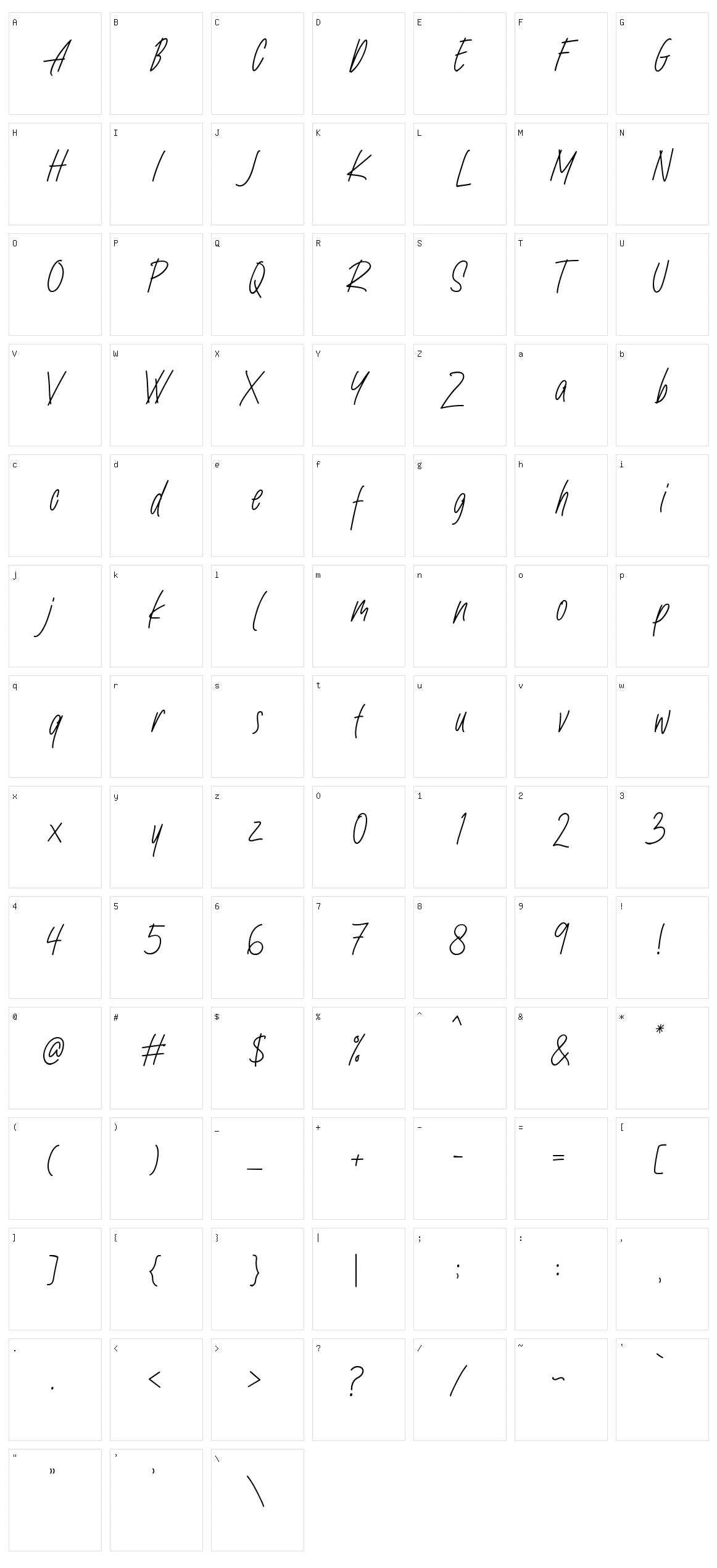
The free font Nafeeda is carefully designed by gameboth studio, showcasing a thoughtful balance of creativity and usability and falls under the Script font style. When you download the ZIP file, it contains only 39.99 KB of font files, making it lightweight and quick to download. Please review the license details below to understand permitted usage and distribution rights. If license information is not available, we recommend using this font for personal projects only or contacting the author directly for commercial usage permissions.